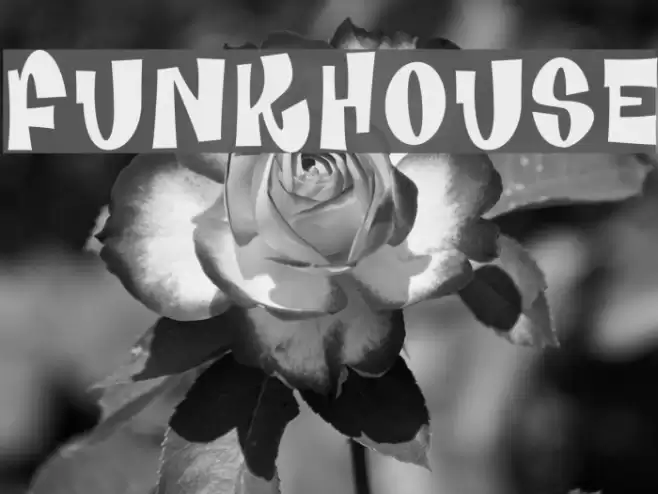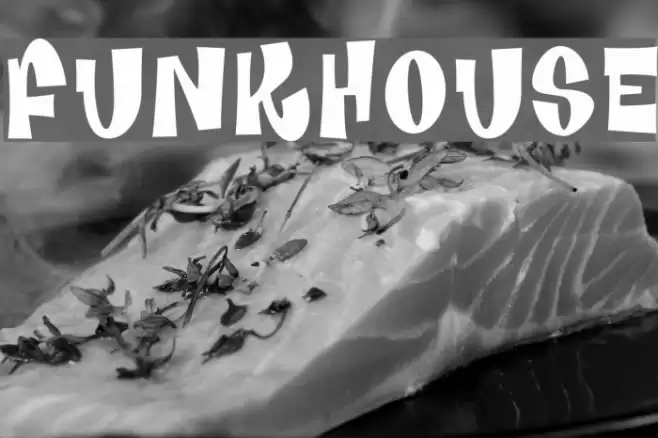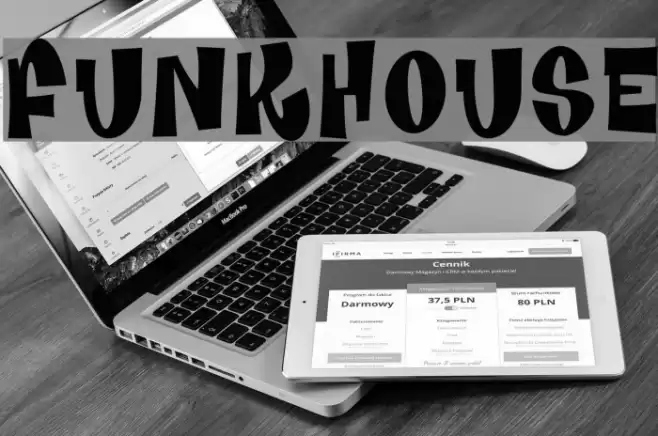
Funkhouse Font
Funkhouse Description
This font features a bold and playful design with exaggerated curves and whimsical shapes. The uppercase letters have a unique, almost cartoonish style, with varying stroke widths that add a dynamic feel. The lowercase letters maintain the same playful essence, offering a cohesive look across the alphabet. Numbers and special characters are equally bold and distinctive, making them stand out. The overall appearance is lively and energetic, perfect for projects that require a fun and eye-catching typeface. Its boldness ensures high visibility, making it suitable for headlines and titles.
A bold, playful font with exaggerated curves and whimsical shapes from Basic fonts.
- Font: Funkhouse
by NicholasJudy456 - Weight: Regular
- Proposed Projects: Ideal for children's books, playful branding, event posters, and creative advertisements.
- Overall Style: Playful, Whimsical